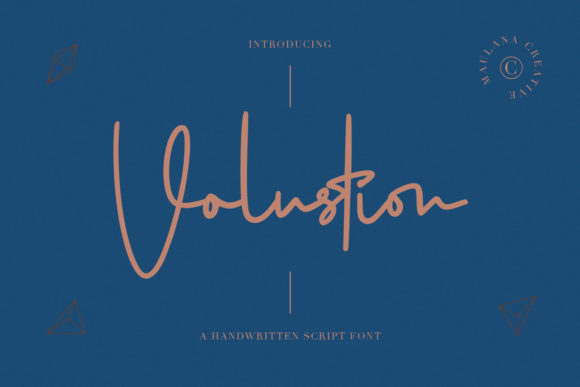
Unleash your creativity and embrace the beauty of Volustion Font, a masterpiece born from the artistic hands of Maulana Creative. This enchanting script font invites you to elevate your digital presence with its graceful curves, delicate strokes, and an undeniable charm that captivates the senses.
Volustion Font is a symphony of elegance waiting to adorn your designs. Its clean, thin, and smooth lines dance across the screen, creating a visual sensation that mesmerizes. Whether you're crafting stunning logos, eye-catching social media posts, or captivating website designs, Volustion Font is your perfect companion.
Immerse yourself in the world of visual allure with Volustion Font. Its mesmerizing design evokes a sense of sophistication that sets your creations apart from the ordinary. Experience the joy of crafting designs that resonate with your audience, leaving an imprint of beauty and distinction in their minds.
With Volustion Font as your creative ally, you'll find endless possibilities to express your individuality. Its versatility spans across a multitude of projects, allowing you to effortlessly add a touch of elegance to invitations, greeting cards, posters, and even merchandise. Unleash your imagination and let Volustion Font transform your designs into works of art.
Explore the boundless realm of possibilities and discover why Volustion Font is the ultimate choice for design enthusiasts who seek to captivate and inspire. Join the creative revolution and elevate your projects to new heights of visual excellence.